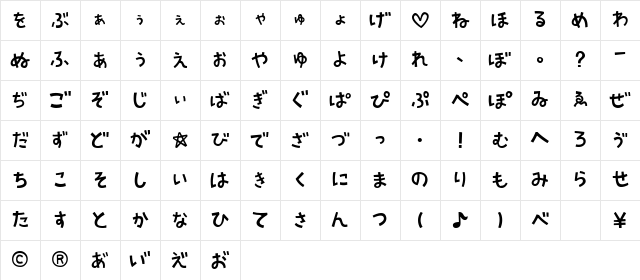
AprilFoolHR Regular Free Font
AprilFoolHR Regular
Design Context for AprilFoolHR
AprilFoolHR is a composed and adaptable typeface that performs quietly and consistently across a wide range of design contexts.